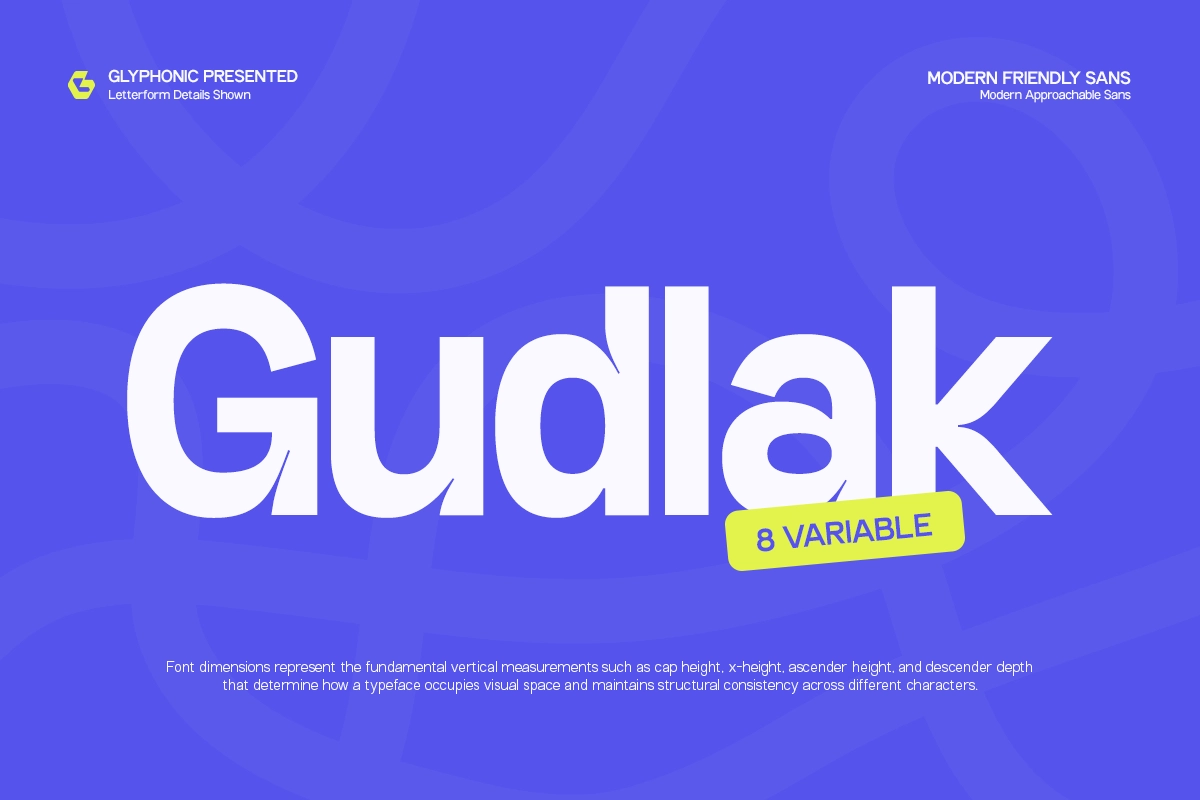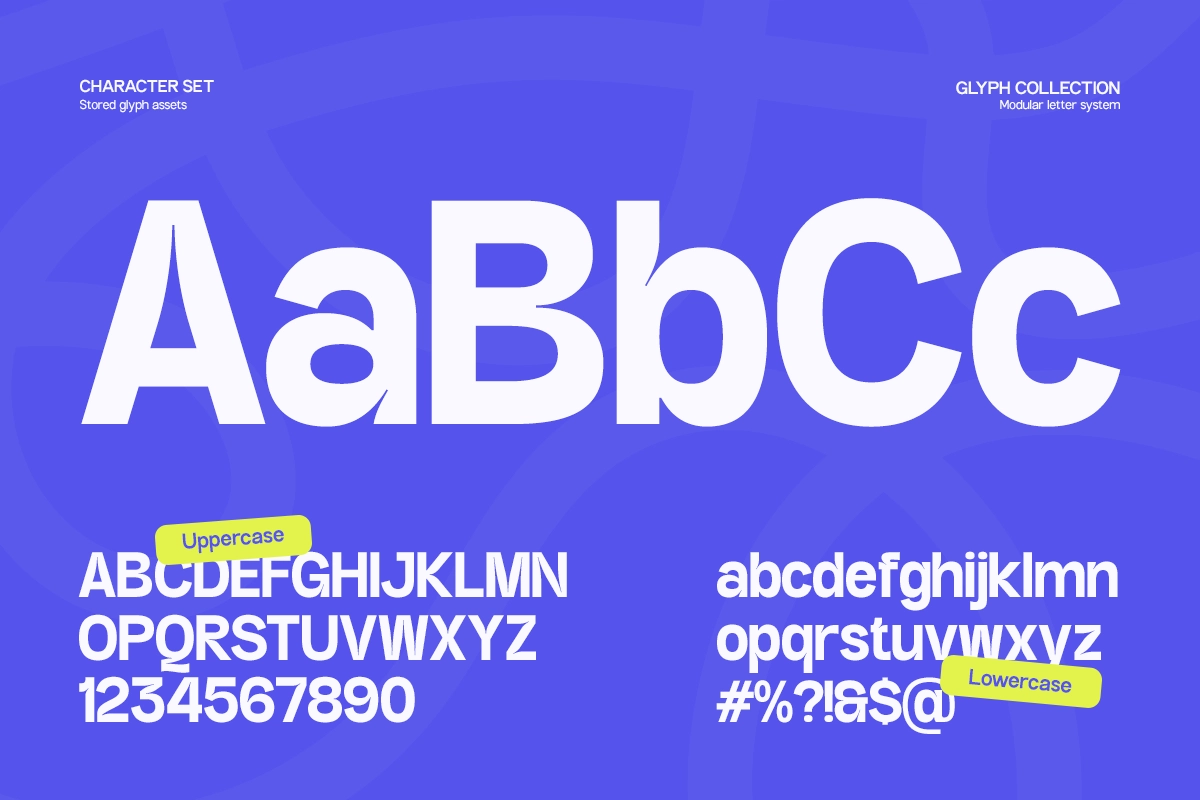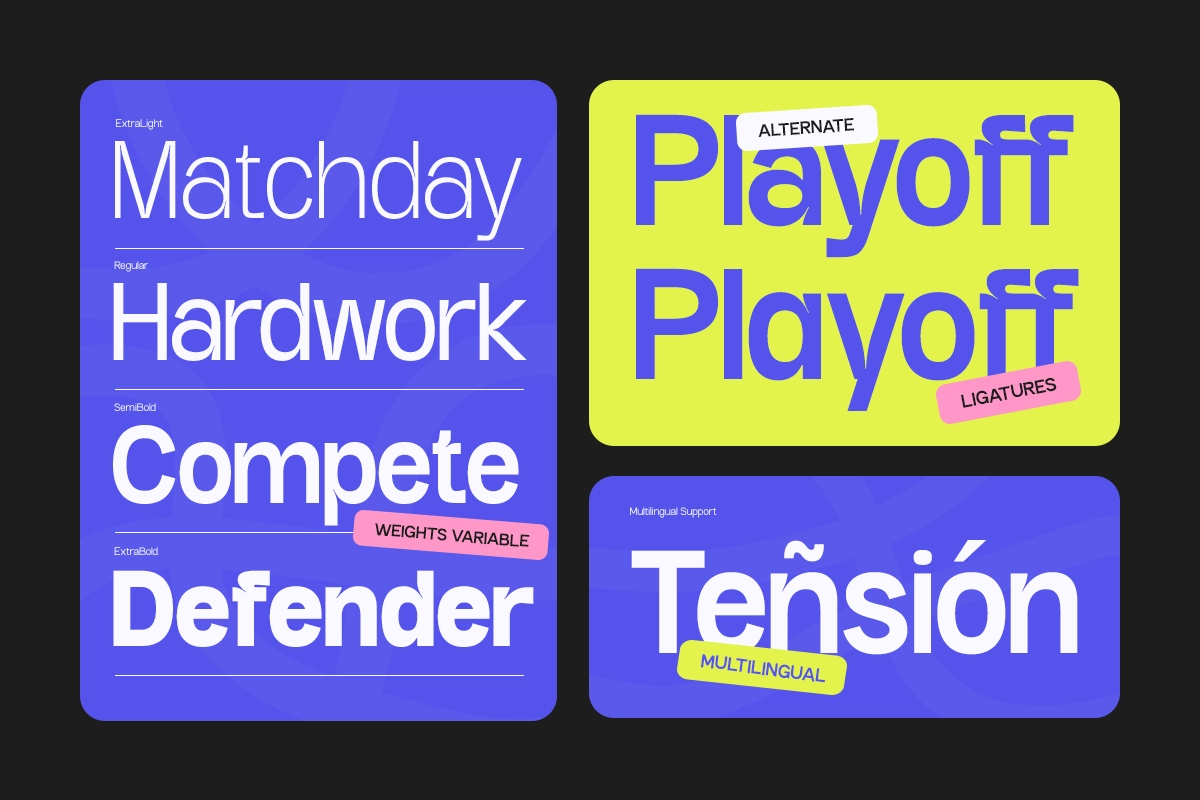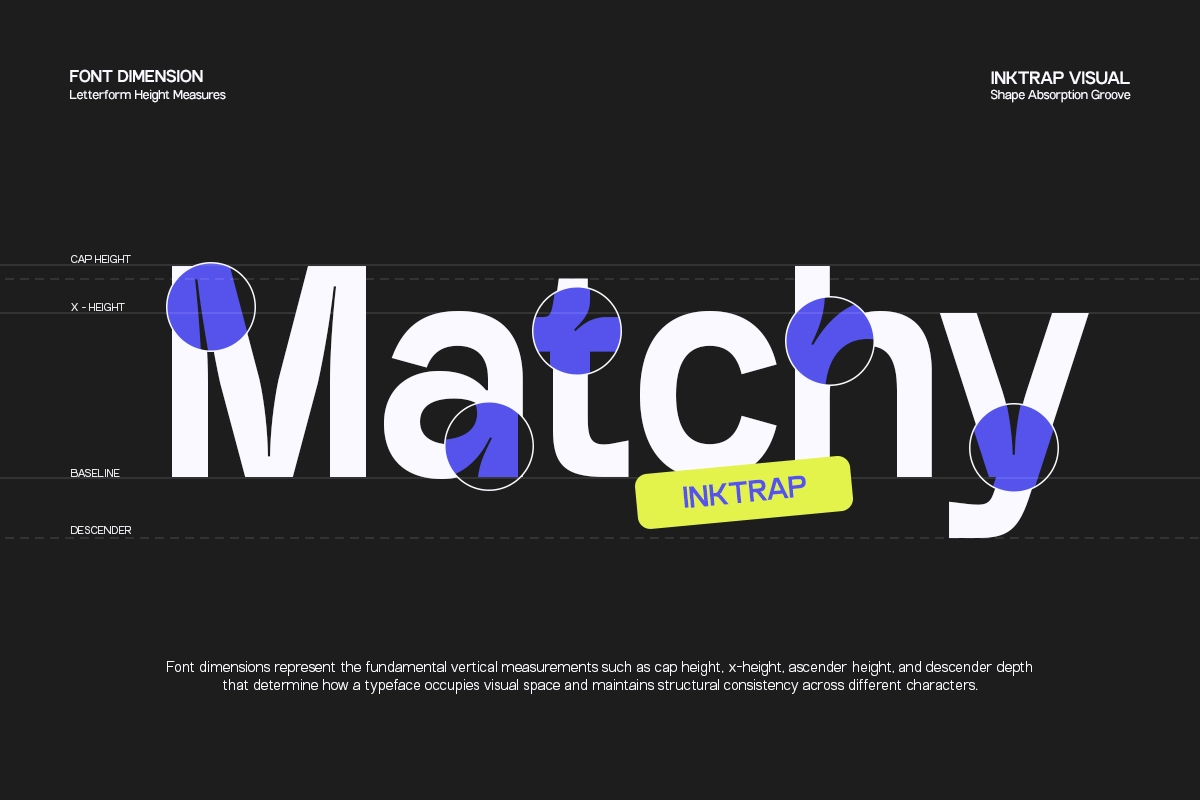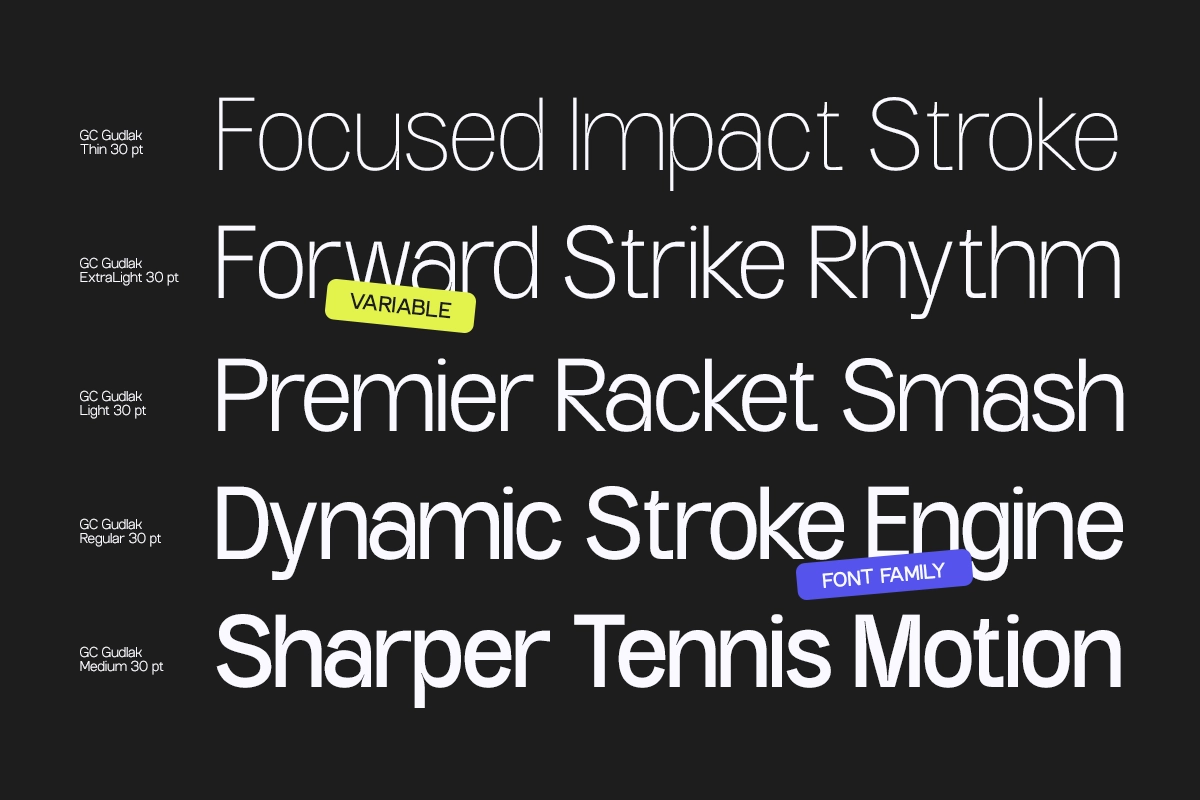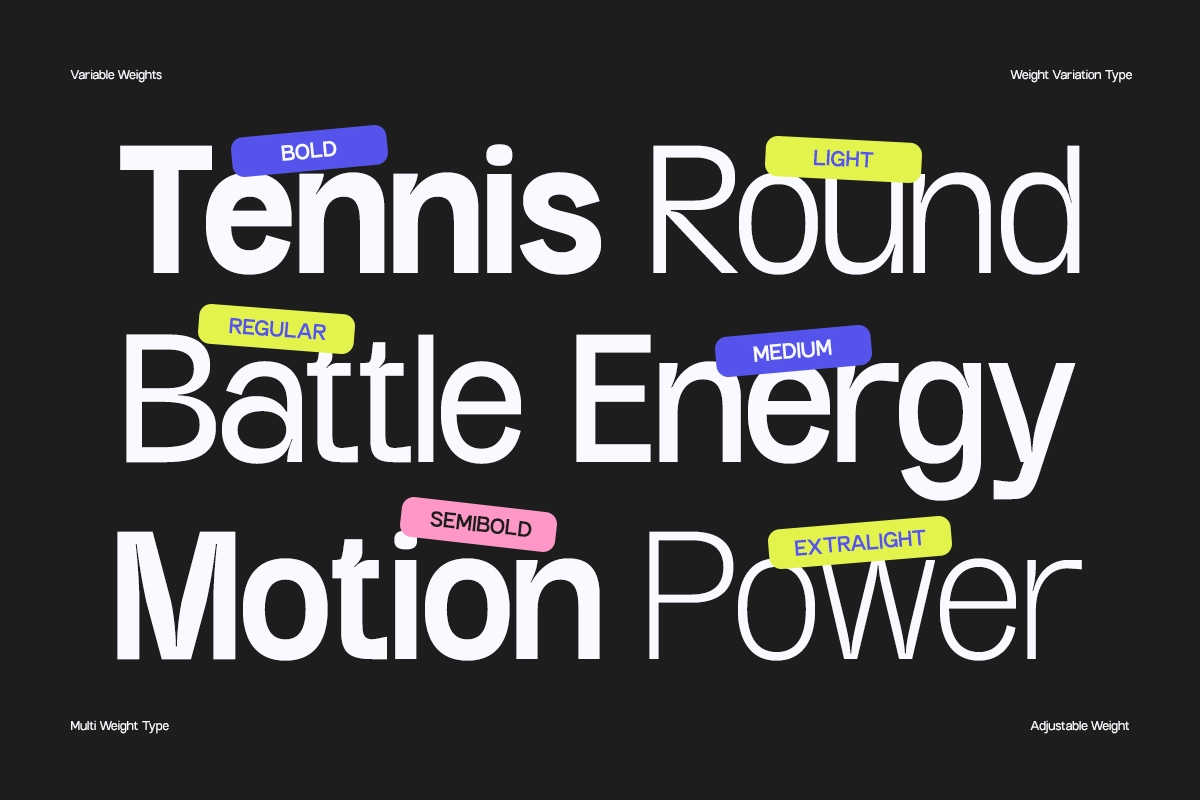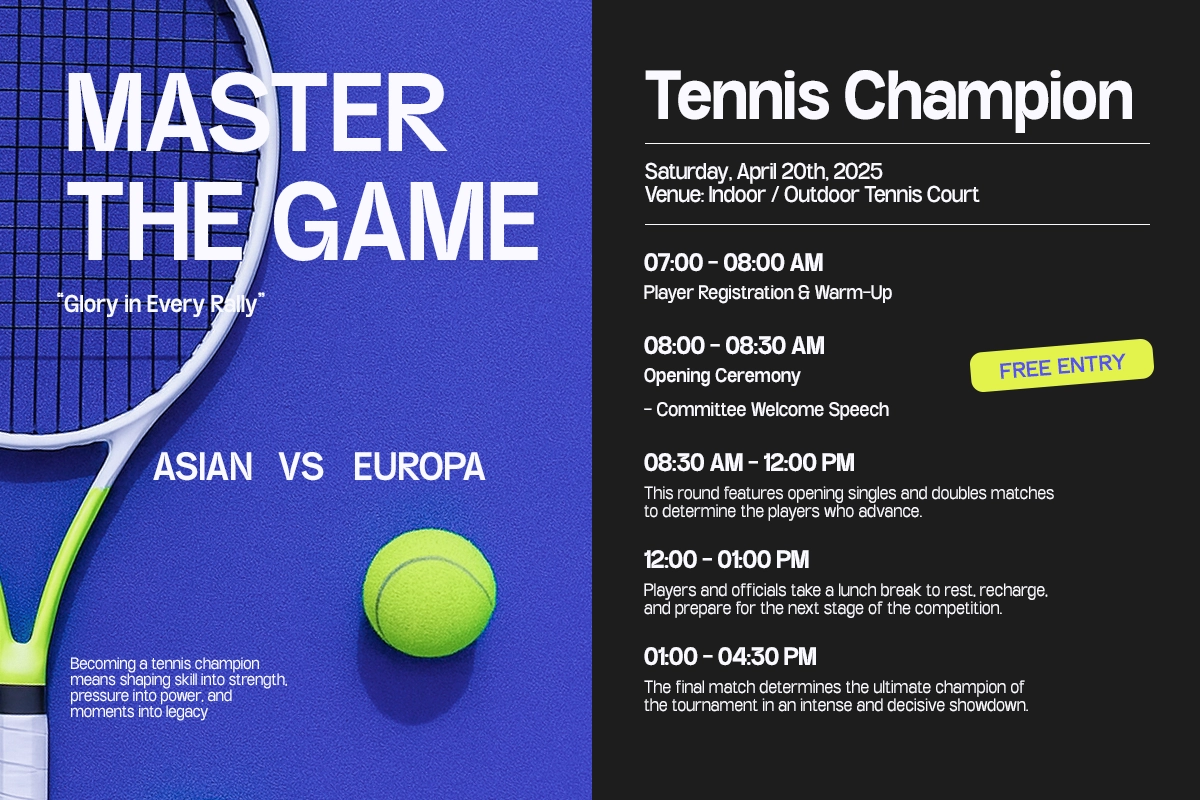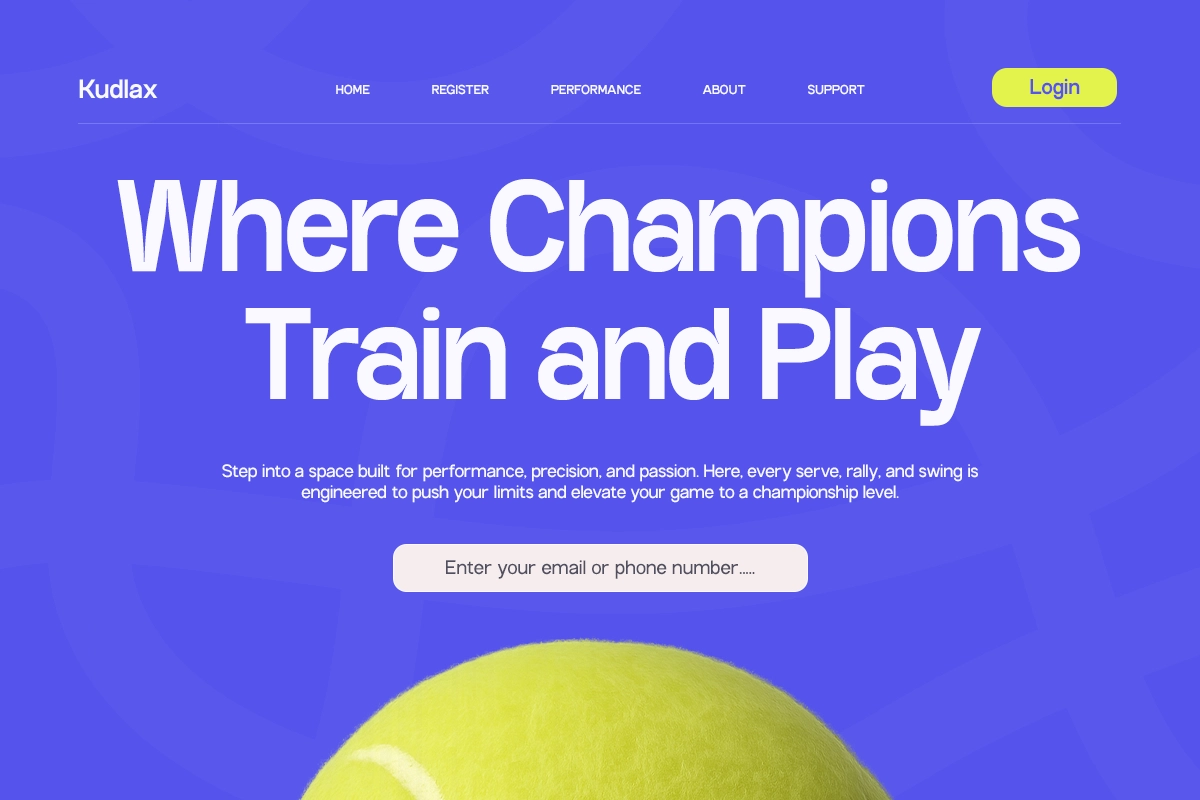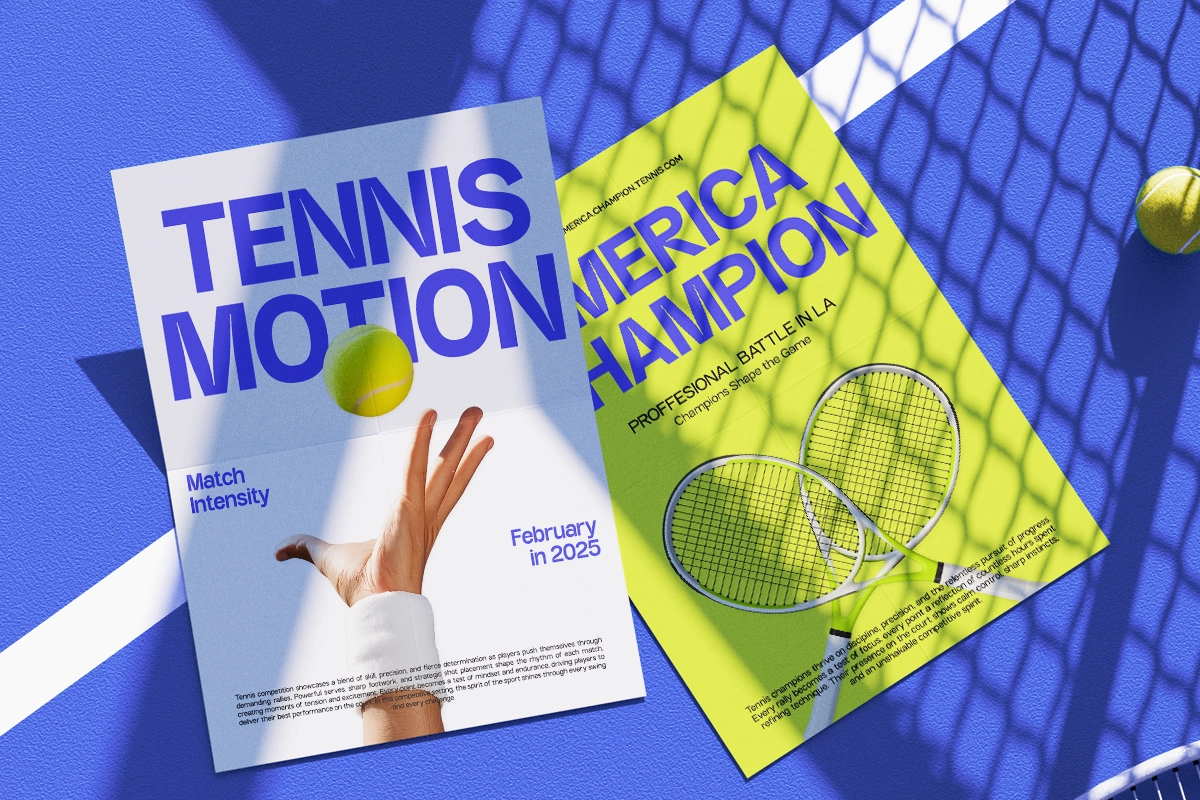
GC Gudlak - Modern Family Sans
GC Gudlak – Modern Family Sans is a refined and versatile sans serif type family created for designers who value clarity, balance, and modern aesthetics. Its clean geometry and smooth curves give it a friendly yet professional tone, making it an ideal fit for branding, web interfaces, packaging, and editorial layouts.
Engineered with meticulous proportions and consistent rhythm, GC Gudlak – Modern Family Sans ensures excellent legibility across all media. The wide weight range—from light to bold—supports strong typographic hierarchy and seamless adaptability between digital and print formats.
Designed to feel modern without losing personality, this typeface combines simplicity with subtle warmth. Whether you’re crafting standout headlines, intuitive app UI, or minimalist brand identities, GC Gudlak delivers a dependable typographic foundation that enhances readability, style, and visual cohesion in any design system.
- Multiple Weights (Family System)
- Clean & Modern Sans Construction